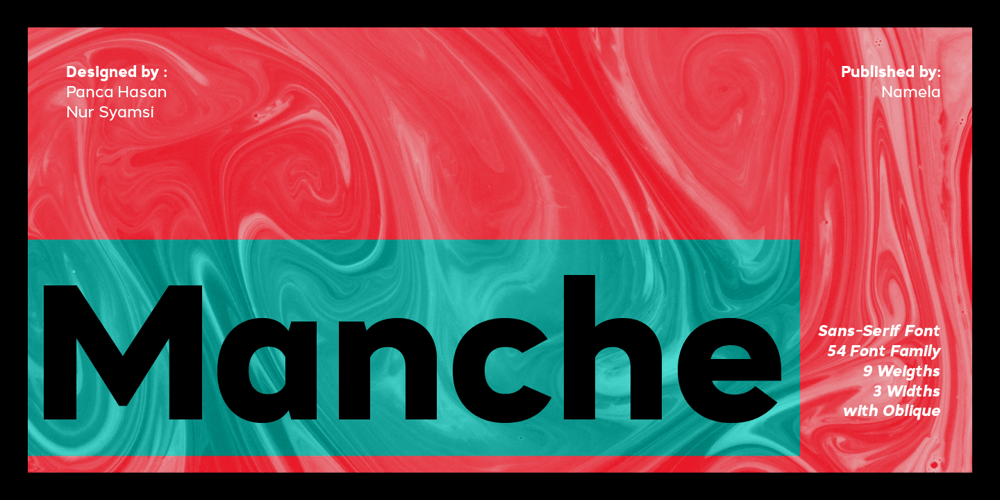
Manche Font Family was designed by Nur Syamsi, Panca Ahmadi Hasan and published by NamelaType. Manche contains 55 styles and family package options. Introducing our newest font called Manche. is a sans serif font with a geometric feel, The younger brother of Counte, made with the same �blueprint� but this font is developed more from the previous experience of designing Madani fonts. Equipped with 3 types of Width and 9 Weight as well Oblique resulting in 54 font family.This font is designed for the needs of digital printing, text, display and others so that it provides many options for various functions.Available in many languages and opentype features.